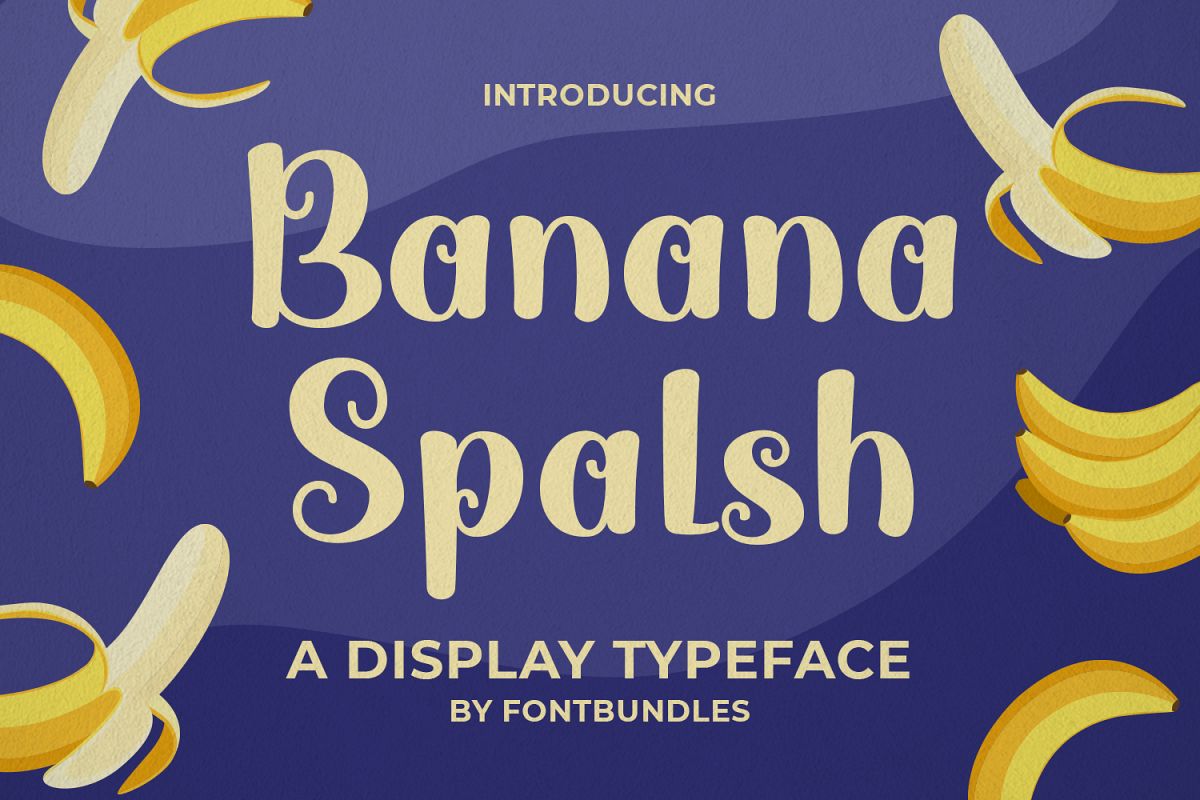
Banana Splash
Banana Splash is a display Typeface. Perfect for display, quotes, logo, logotype, craft needs, business card, print, packaging, merchandise, branding, and many more.